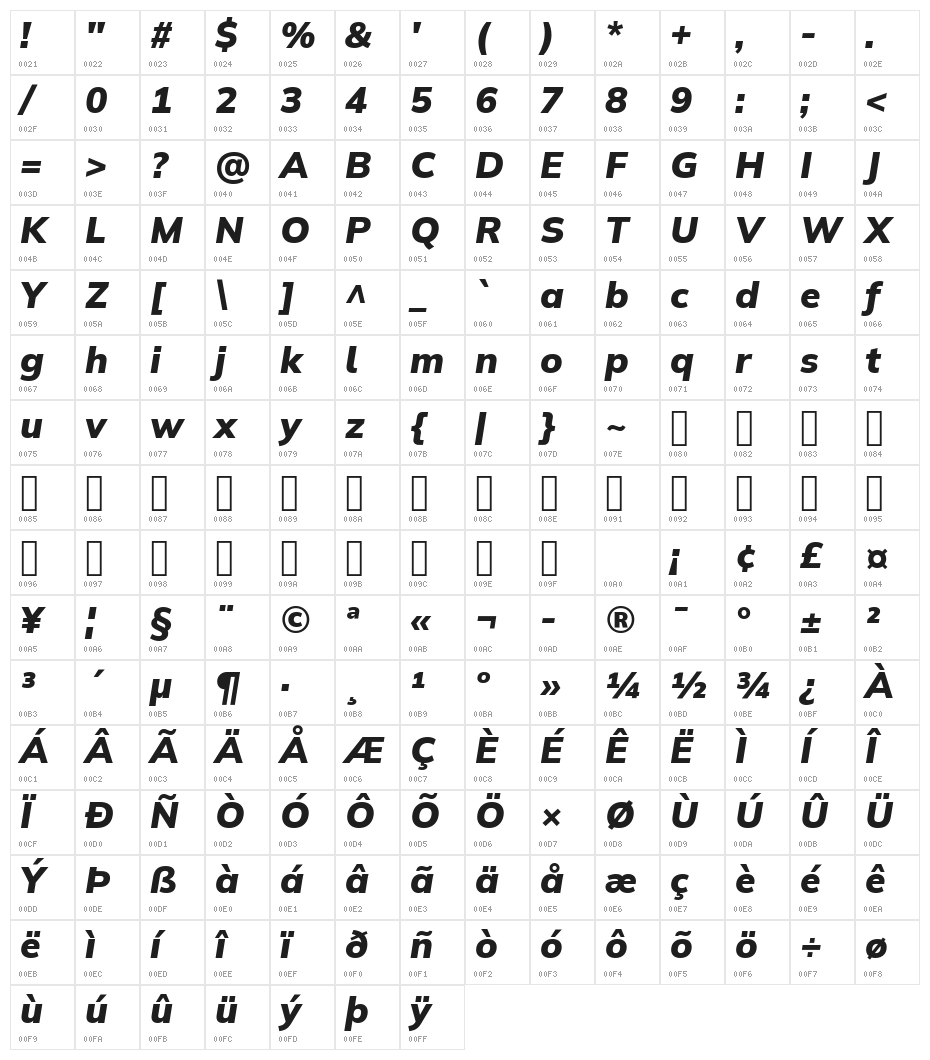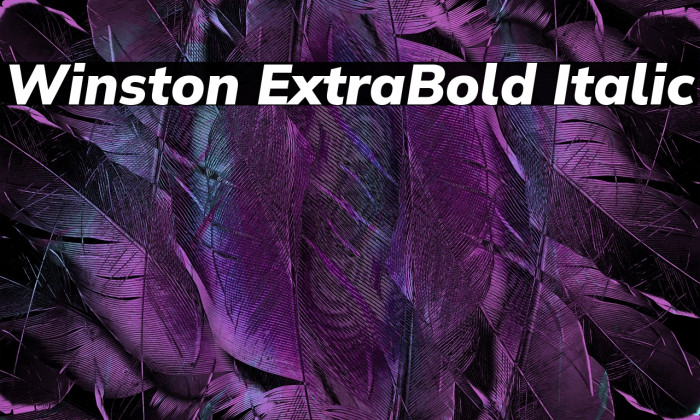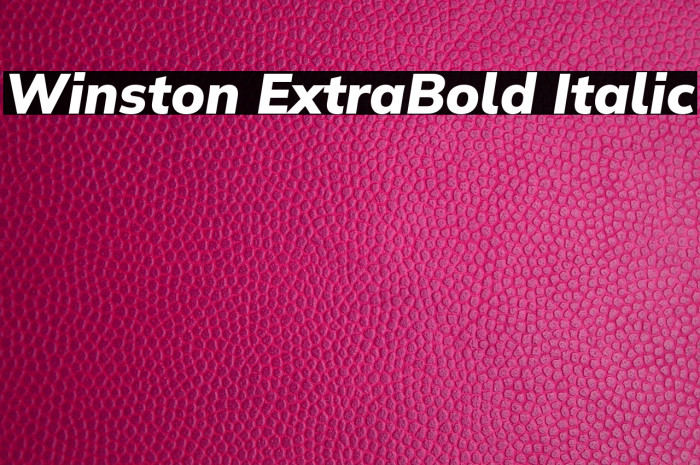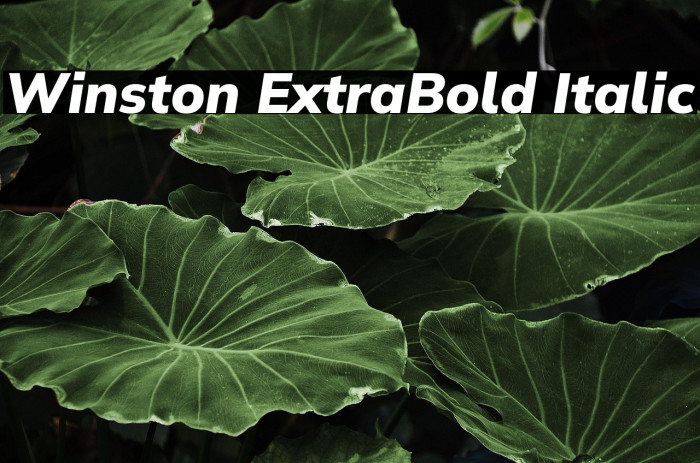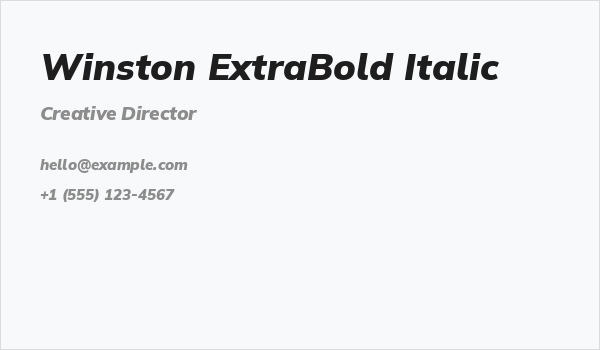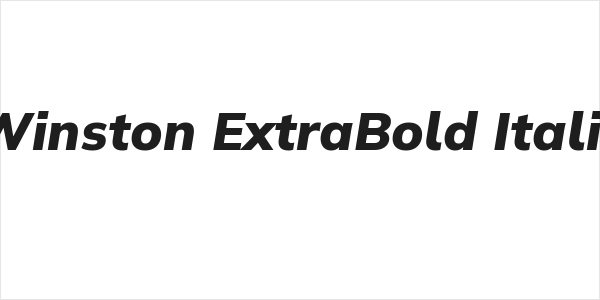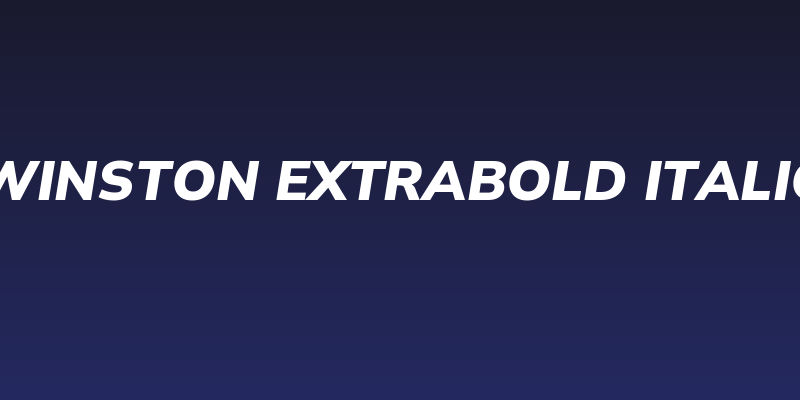
Winston ExtraBold Italic Font
Winston ExtraBold Italic Description
This typeface exhibits a bold and dynamic presence with its extra bold weight and italic style. The characters are designed with a slight forward slant, adding a sense of movement and urgency. The strokes are thick and consistent, providing a strong visual impact. The font maintains a modern and clean aesthetic, making it suitable for contemporary designs. Its uppercase and lowercase letters are well-proportioned, ensuring readability even at smaller sizes. The numerals and special characters are crafted with the same attention to detail, offering a cohesive look across all text elements.
| Proposed Projects | Ideal for branding, advertising, headlines, and any project requiring a strong visual impact. |